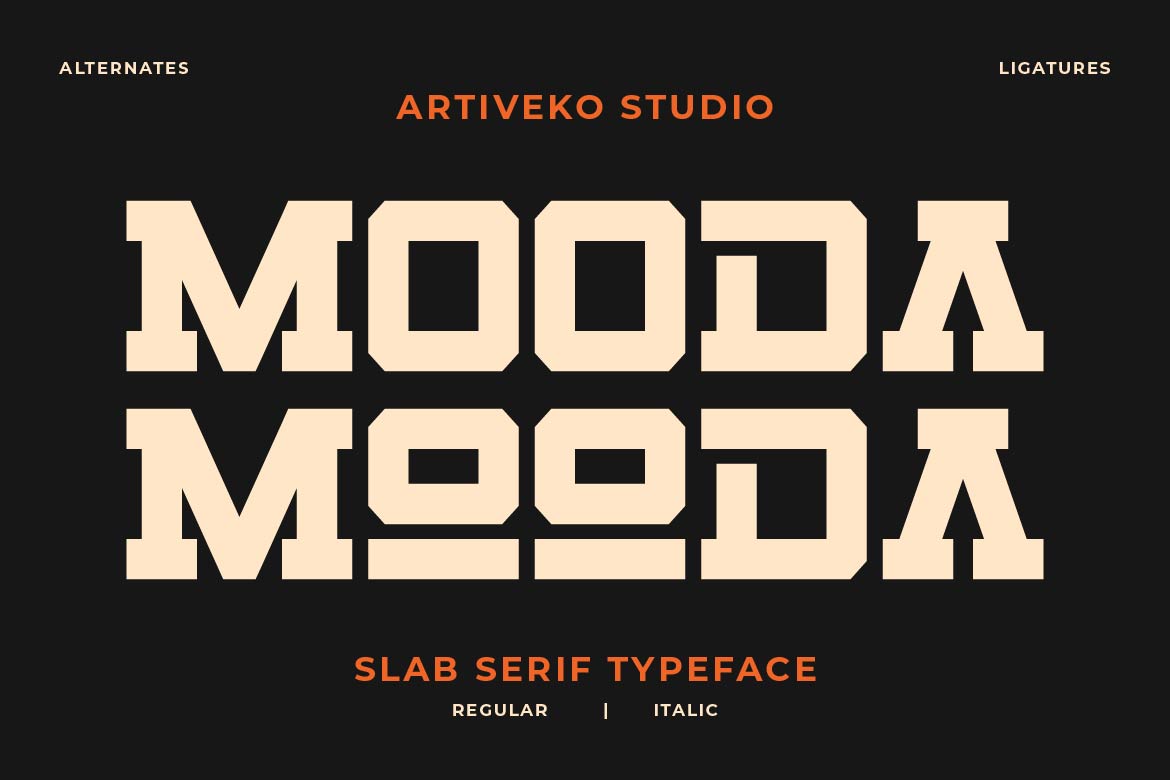
- Mooda – Bold Slab Serif Font for Strong Branding & Headlines
Mooda is a bold slab serif typeface designed to deliver strength, stability, and strong visual impact. With thick strokes, solid slab serifs, and confident letterforms, Mooda creates a powerful presence in any design.
Perfect for branding, logos, posters, packaging, editorial headlines, and vintage-inspired visuals, Mooda blends classic slab serif character with a modern bold approach. Its sturdy structure gives a sense of reliability and authority while maintaining readability across both print and digital applications.
Whether used for bold branding, retro-style design, or impactful campaigns, Mooda stands out with its strong personality and timeless appeal.
Mooda is not just a font — it’s built for strength, impact, and bold expression.